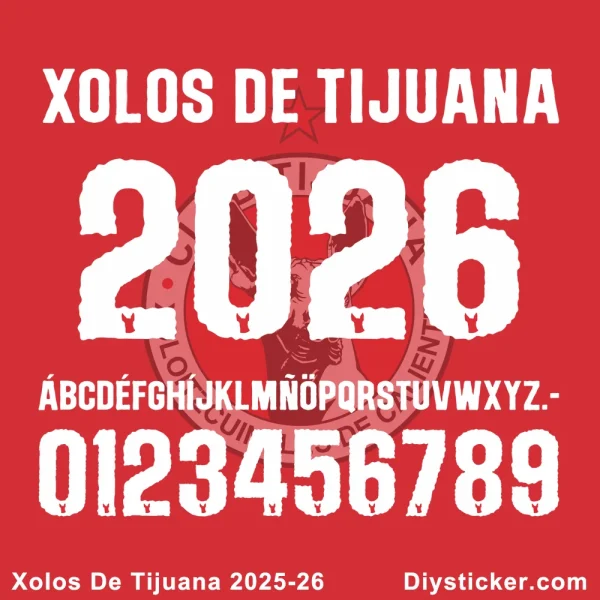
Capture the unique spirit of the border with the official Xolos de Tijuana 2025-26 Font. This professionally crafted typeface replicates the club’s distinctive lettering, perfect for creating authentic jerseys, fan merchandise, and digital content for Los Xolos supporters.